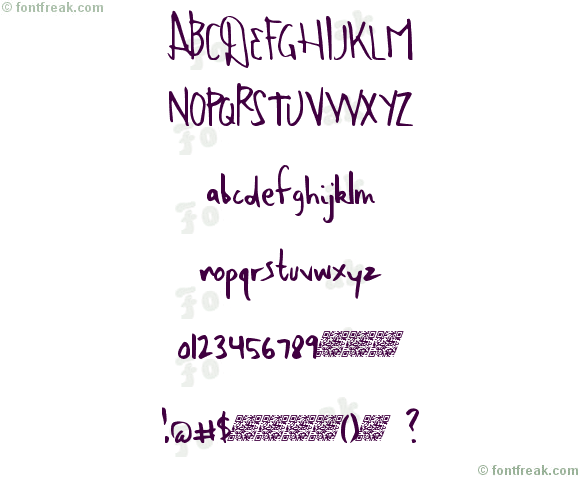
EasyDoughDT
EasyDoughDT — Character Map
About EasyDoughDT
EasyDoughDT by Xerographer Fonts is a charming handwritten font that exudes a playful yet elegant vibe. This display font features a medium stroke weight with a slightly irregular line quality, mimicking the natural flow of human handwriting. The absence of sharp edges and the rounded forms create a friendly aesthetic, while the moderate contrast adds a touch of sophistication. EasyDoughDT’s generous spacing between characters contributes to its legibility, making it suitable for various applications.
This versatile font is perfect for a range of creative projects. It shines in wedding invitations, where its whimsical character can convey warmth and personalization. For restaurant menus, EasyDoughDT adds a unique flair, enticing diners with its approachable style. Additionally, it is excellent for crafting engaging social media graphics, allowing content creators to convey messages in a visually appealing manner. Graphic designers will find it useful for branding projects, particularly for businesses aiming to evoke a casual, friendly atmosphere.
Targeted towards graphic designers, small business owners, and content creators, EasyDoughDT is a font that effortlessly elevates any design project. Its unique charm appeals to those looking to make a memorable impression, whether in print or digital formats.
What truly sets the EasyDoughDT font apart is its balance of informality and elegance. The handwritten style captures attention while maintaining readability, making it a go-to choice for those who want their projects to resonate with authenticity. For anyone in search of a distinctive typeface, the EasyDoughDT font free download offers an opportunity to incorporate this delightful font into their creative toolkit, enhancing visual storytelling across various media.